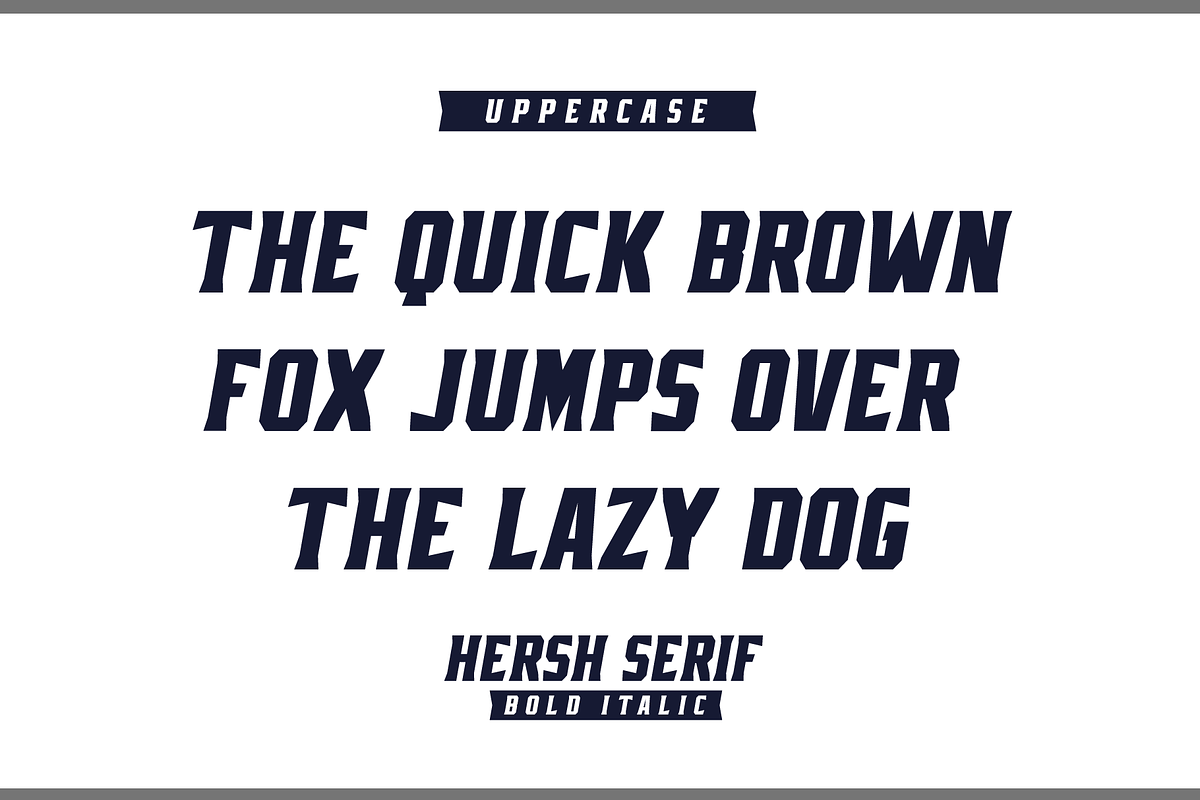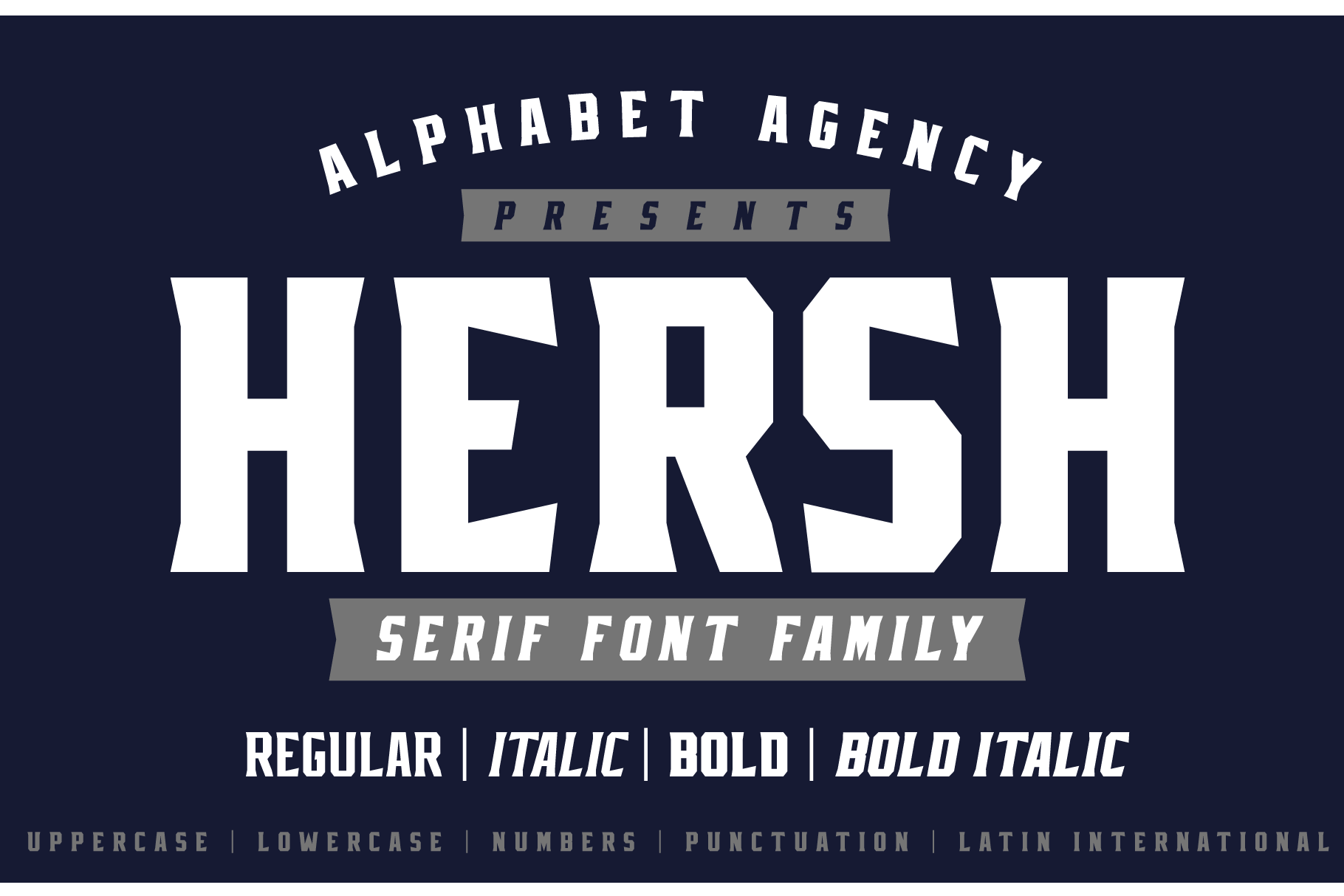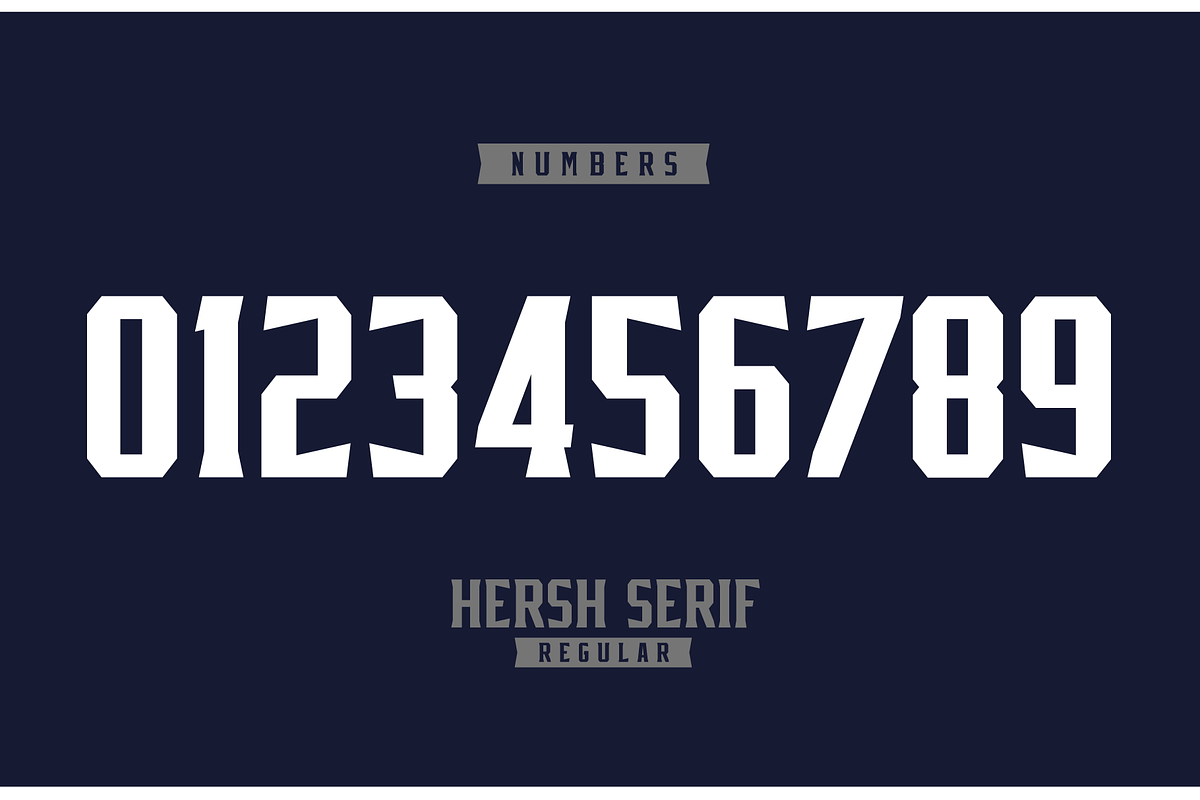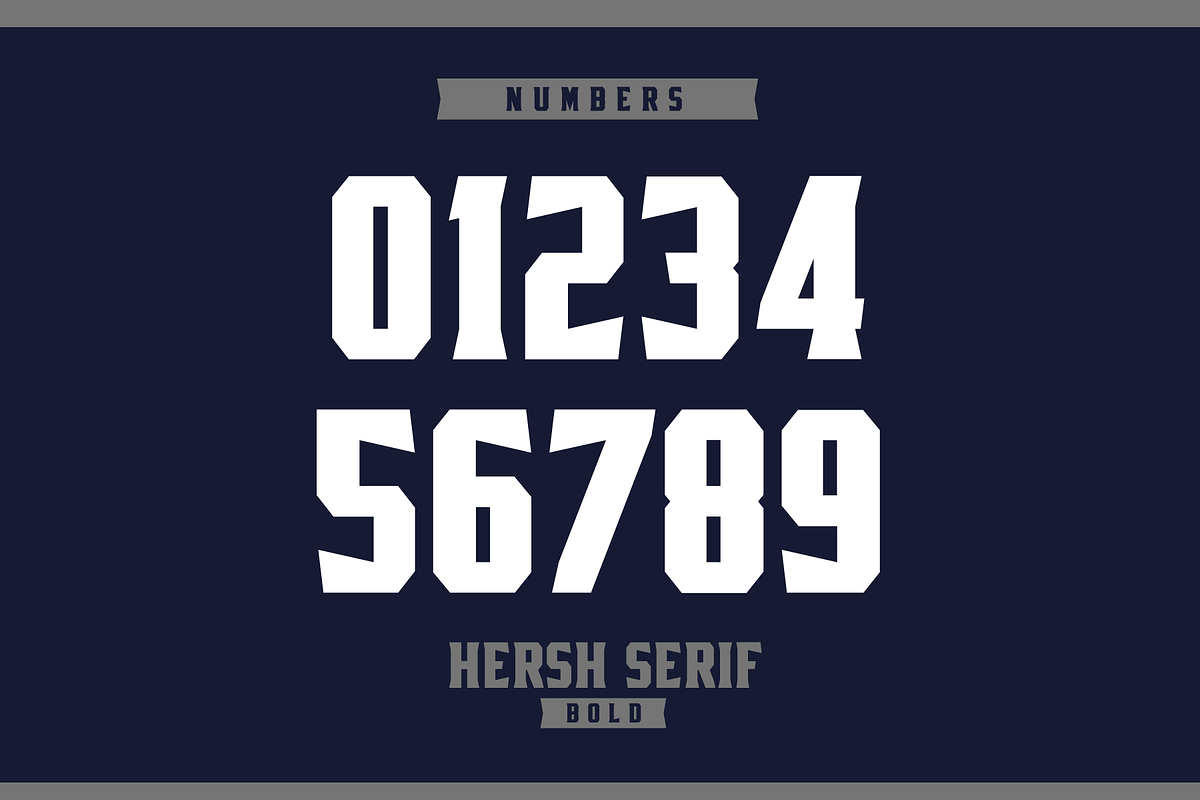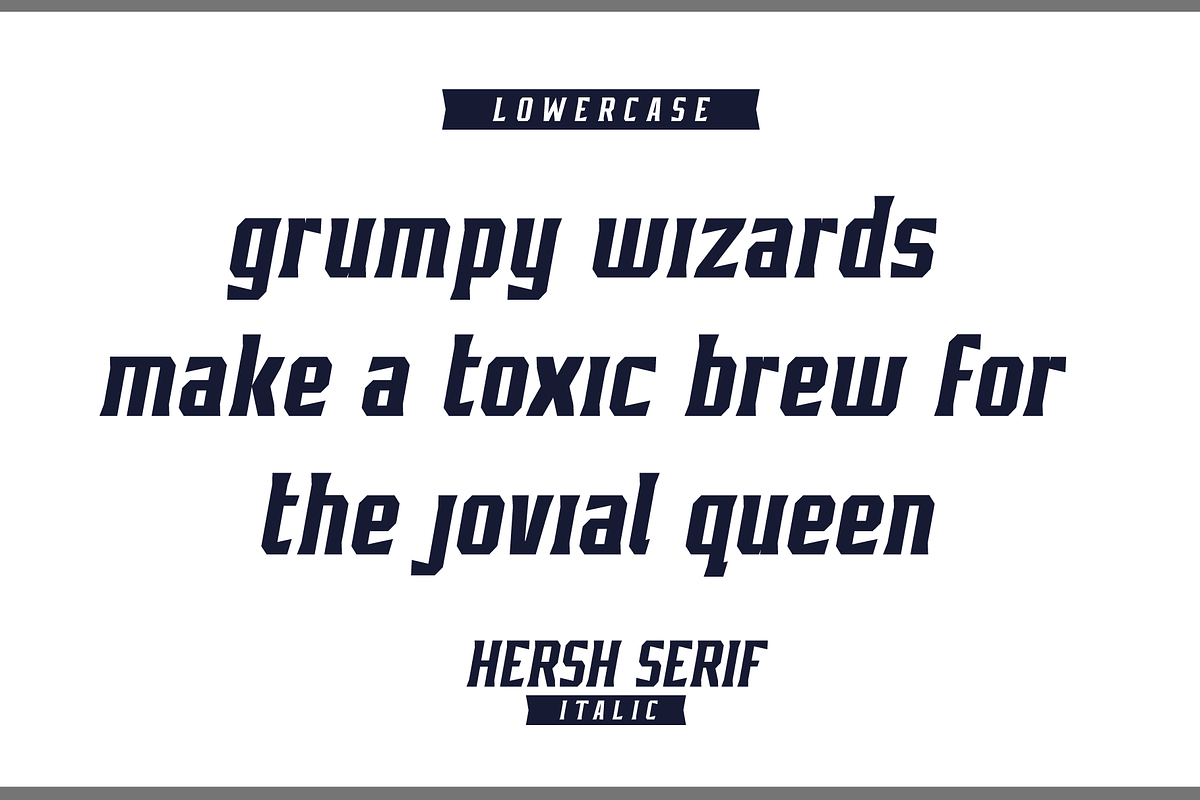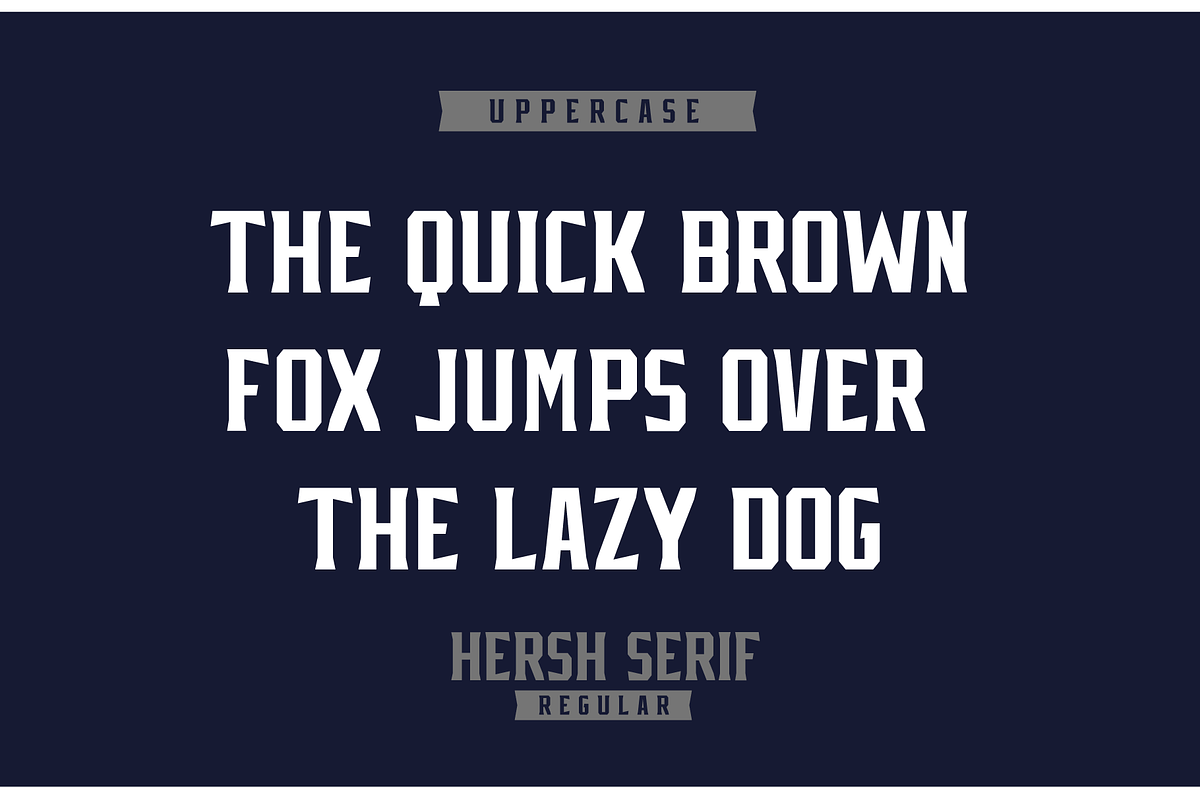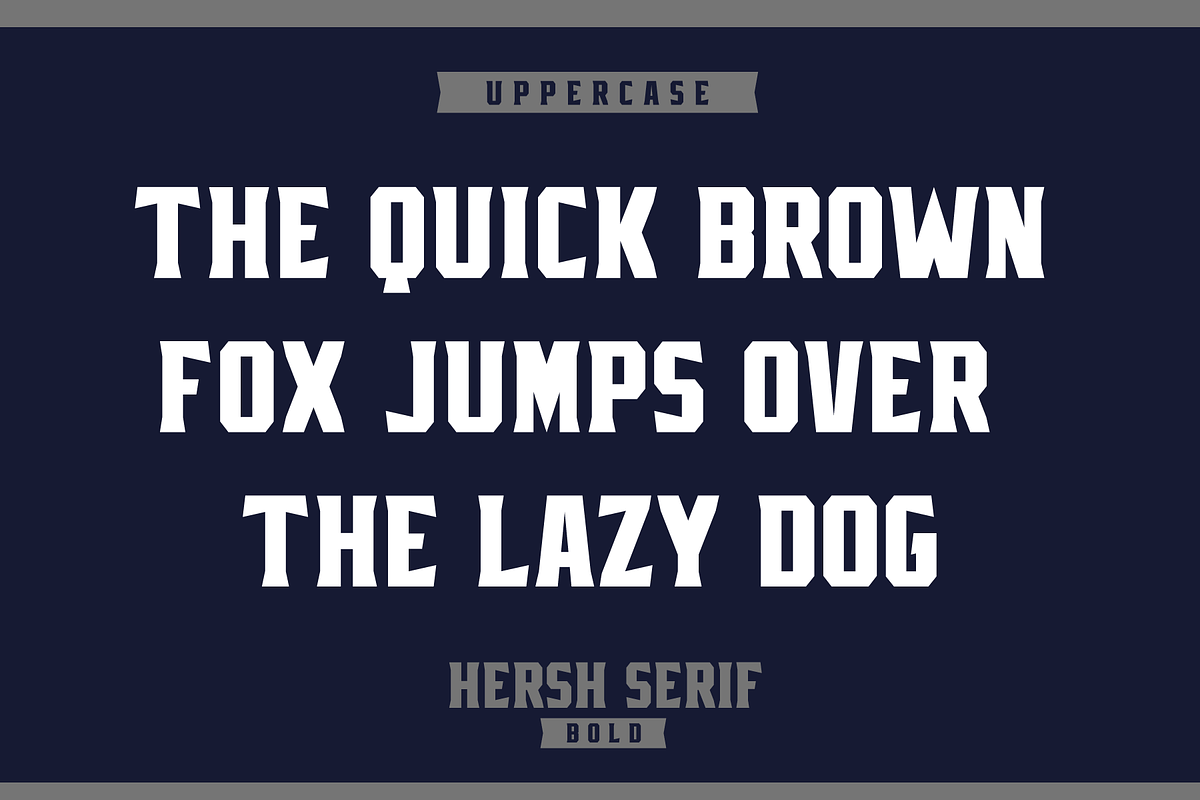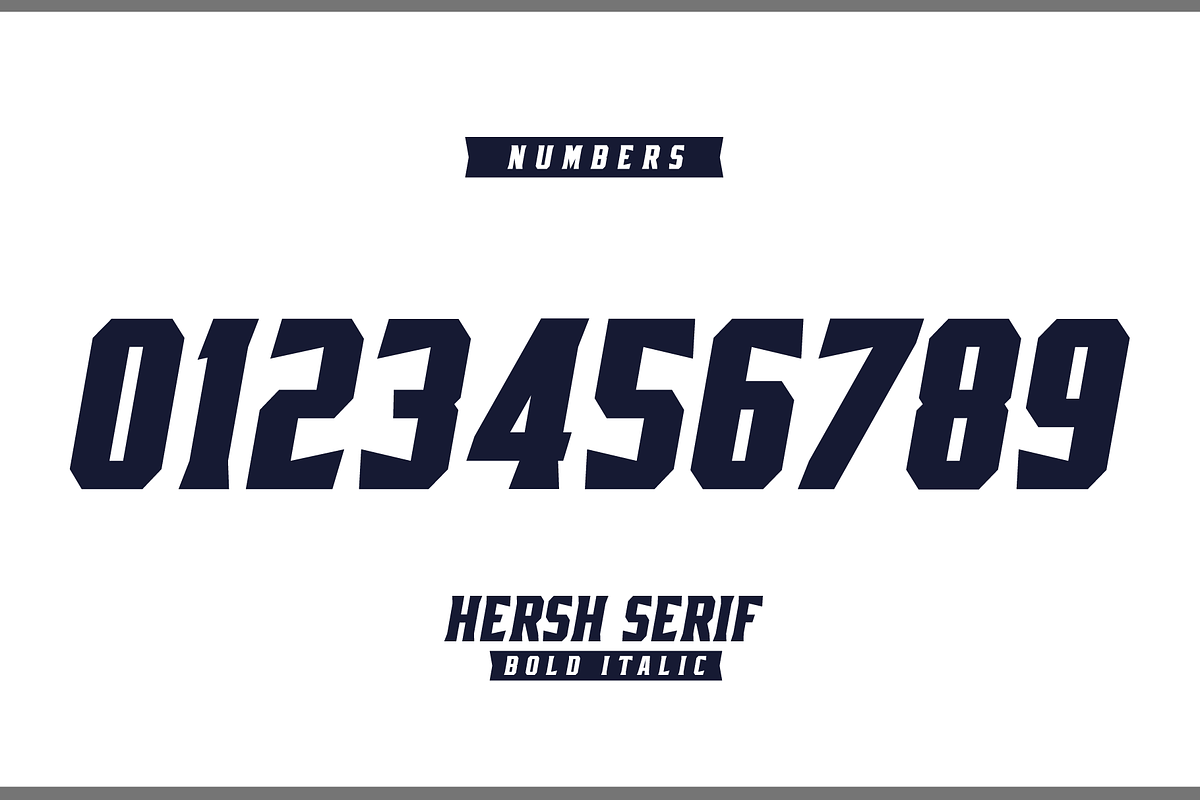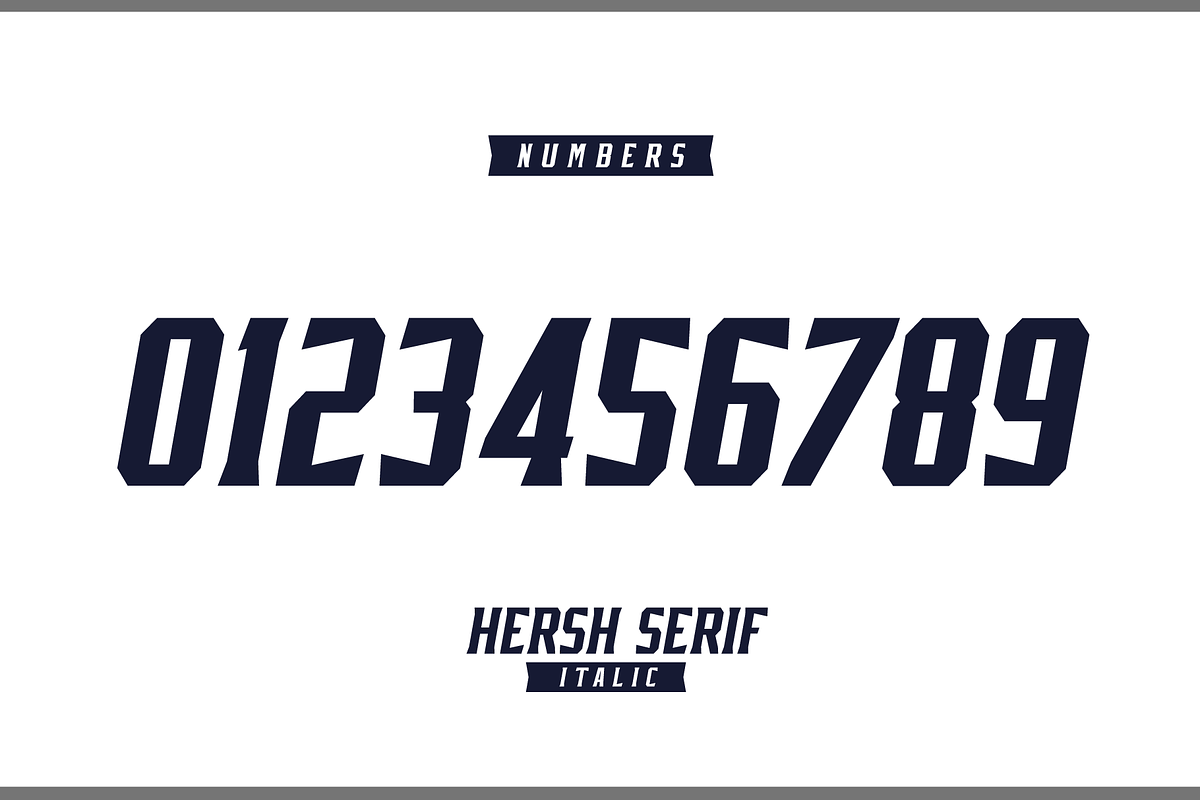
HERSH SERIF FONT FAMILY
Hersh Serif Font Family is an imposing serif family composed of 4 fonts; regular, italic, bold and bold italic. If you are looking to express seriousness and strength with your text, this font family is for you.
The font works great as a display font for headlines and signage.
Each font includes uppercase, lowercase, numbers, punctuation and Latin international characters.